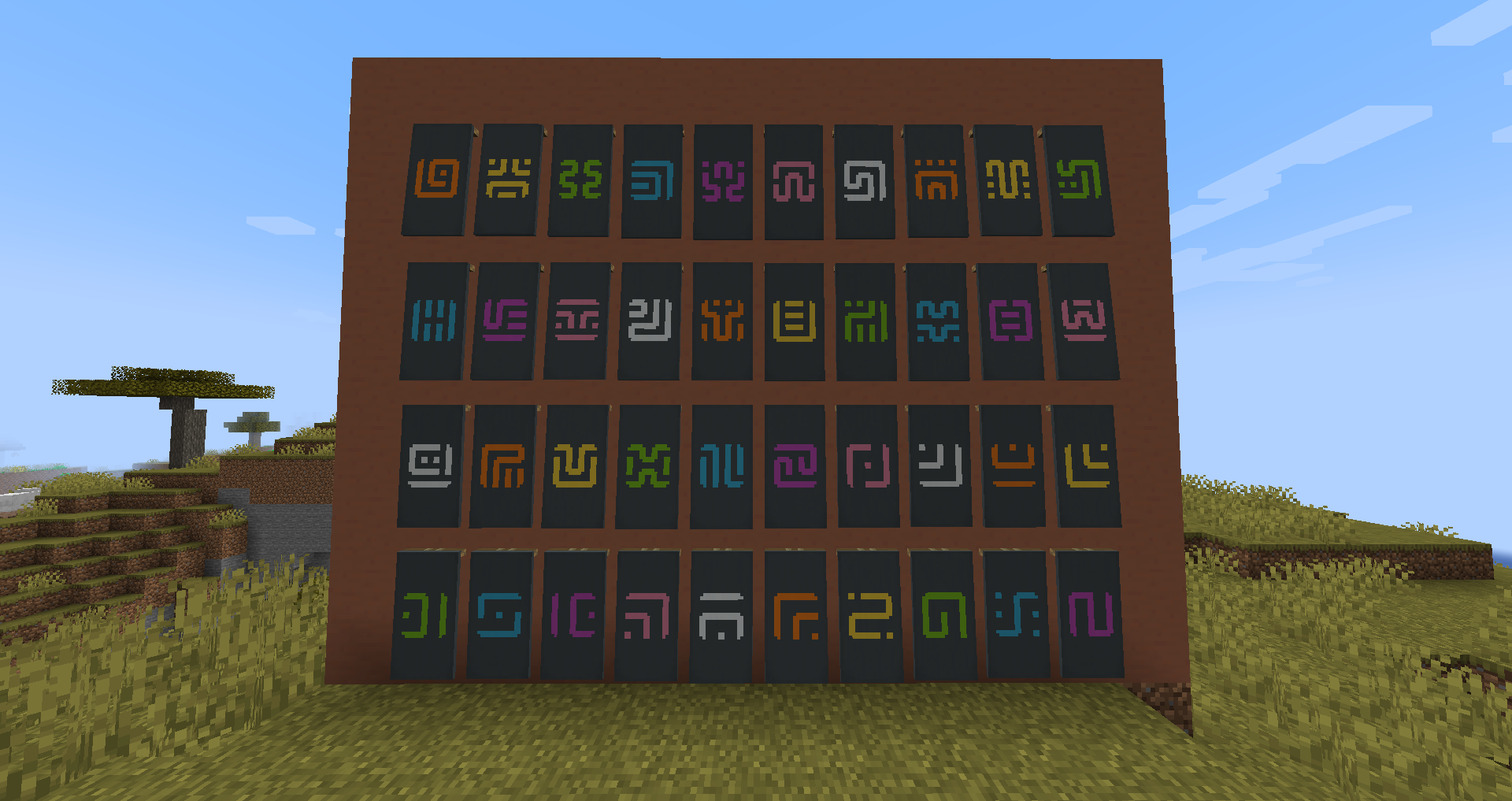
This mod adds a font based on the Sheikah alphabet found in The Legend of Zelda: Breath of the Wild and Tears of the Kingdom, as well as 40 banner patterns based on the 40 characters from it.
The font can be used by any JSON text (it has id sheikahfont:sheikah), such as with the /tellraw or /title commands on in custom item names. If you have Bookshelf, you can also use the /bookshelf font command for easy uses.
The font supports:
- All 26 latin letters A to Z (upper and lowercase are displayed the same),
- All 10 arabic numerals 0 to 9,
- Dash (-), dot (.), exclamation (!) and question mark (?).